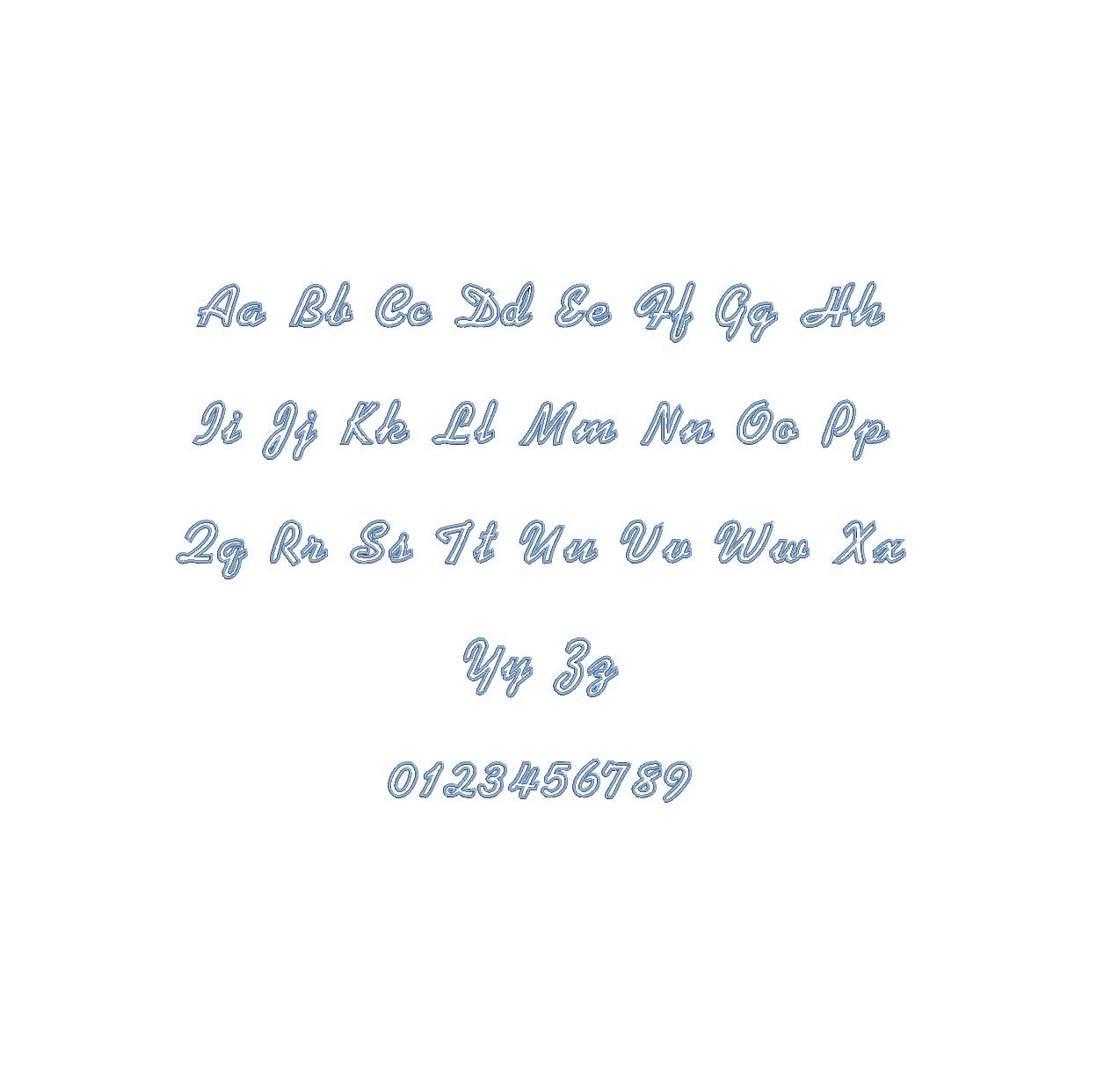
Elevate your embroidery artistry with the Lumley Outline ESA font, now fully compatible with Wilcom Studio e4.5.6 and Hatch 3 versions and beyond. This elegant typeface infuses sophistication into your projects. Its meticulously crafted outlines are perfect for monograms, logos, and projects demanding a touch of timeless class. Seamlessly integrate it into your preferred embroidery software for effortless editing and impeccable outcomes. With the Lumley Outline ESA font, your designs radiate refinement and professionalism. Empower your digitization skills and create embroidery that epitomizes grace and excellence. Illuminate your creative path with this indispensable addition to your toolkit.